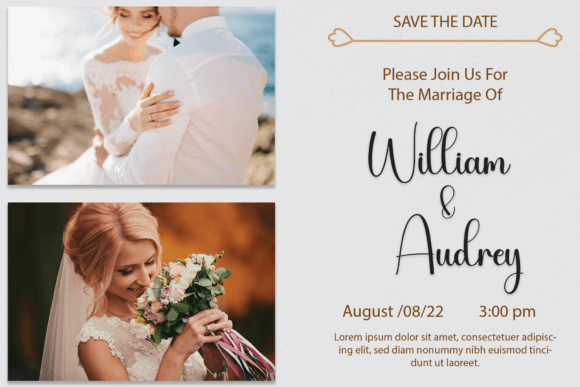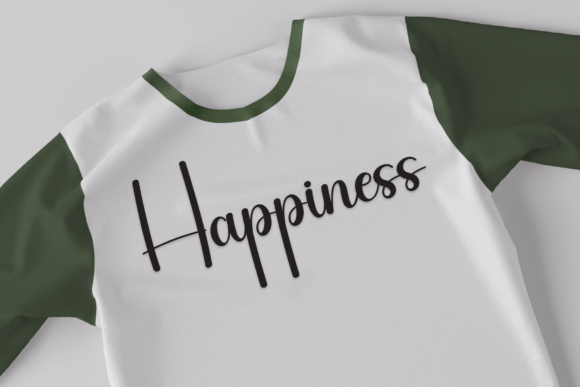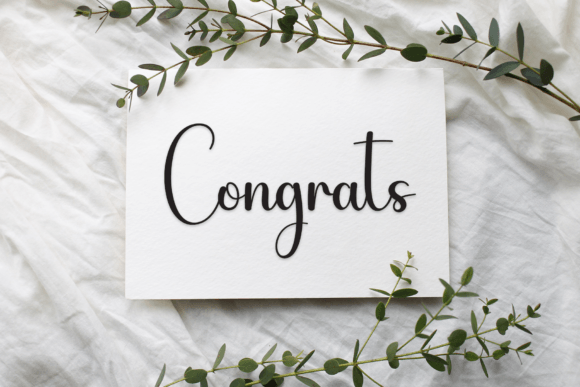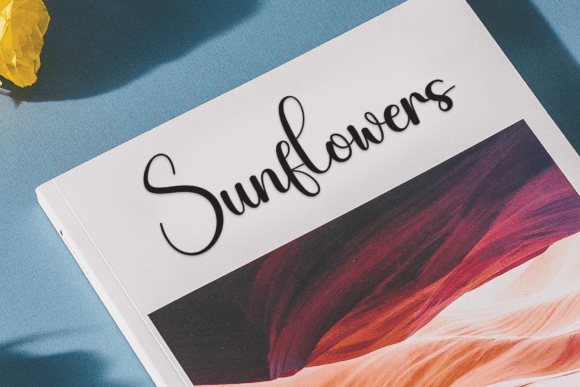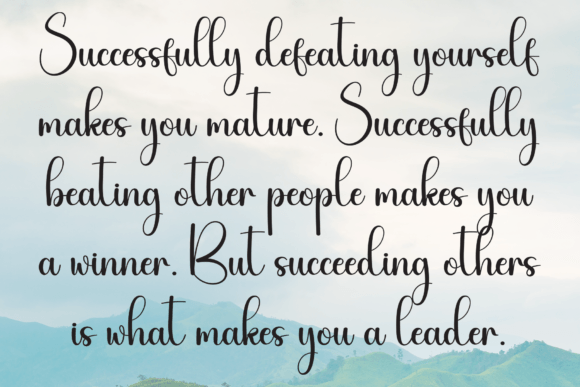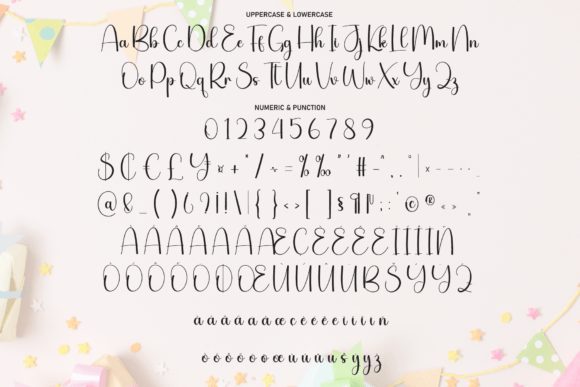
Birthday Font: The Perfect Addition to Your Celebratory Designs
Are you looking for a font that embodies the joy and excitement of birthday celebrations? Look no further than the Birthday Font! This fun and cheerful handwritten style is perfect for adding a personal touch to birthday cards, invitations, party decorations, and more. In this article, we’ll dive into the world of Birthday Font and explore its features, uses, and benefits for designers and crafters.
What is Birthday Font?
Birthday Font is a playful, handwritten font that captures the essence of celebratory occasions. Its casual and friendly feel makes it perfect for creating festive and fun designs that are sure to bring a smile to anyone’s face. The font’s playful letters are carefully crafted to convey a sense of joy and excitement, making it an ideal choice for birthday-themed designs.
- Playful Letters: Birthday Font features playful letters that are perfect for creating fun and festive designs.
- Handwritten Style: The font’s handwritten style gives it a personal and casual feel that’s perfect for birthday celebrations.
- Cheerful and Fun: Birthday Font is designed to bring a smile to people’s faces, making it perfect for creating joyful and celebratory designs.
Uses of Birthday Font
Birthday Font is a versatile font that can be used in a variety of ways to add a personal touch to your designs. Here are some popular uses of Birthday Font:
- Birthday Cards: Create personalized birthday cards with Birthday Font and make the occasion even more special.
- Invitations: Use Birthday Font to create fun and festive invitations for birthday parties, baby showers, and other celebrations.
- Party Decorations: Add a personal touch to your party decorations with Birthday Font, perfect for birthday banners, garlands, and more.
- Social Media Posts: Use Birthday Font to create engaging and festive social media posts for birthdays and other celebrations.
Benefits of Using Birthday Font
Using Birthday Font in your designs offers several benefits, including:
- Unique and Personalized Designs: Birthday Font helps you create unique and personalized designs that stand out from the crowd.
- Time-Saving: With Birthday Font, you can create professional-looking designs in no time, saving you time and effort.
- Easy to Read: The font’s clear and playful letters make it easy to read, even at small sizes.
Tips for Using Birthday Font
Here are some tips for using Birthday Font in your designs:
- Pair with Other Fonts: Experiment with pairing Birthday Font with other fonts to create interesting and unique combinations.
- Use Bright Colors: Use bright and bold colors to match the playful and cheerful feel of Birthday Font.
- Experiment with Sizes: Try using Birthday Font in different sizes to create visual interest and add emphasis to your designs.
In conclusion, Birthday Font is a fun and cheerful handwritten font that’s perfect for adding a personal touch to birthday celebrations. With its playful letters, casual feel, and versatility, Birthday Font is an ideal choice for designers and crafters looking to create unique and festive designs. Whether you’re creating birthday cards, invitations, party decorations, or social media posts, Birthday Font is sure to bring a smile to people’s faces.